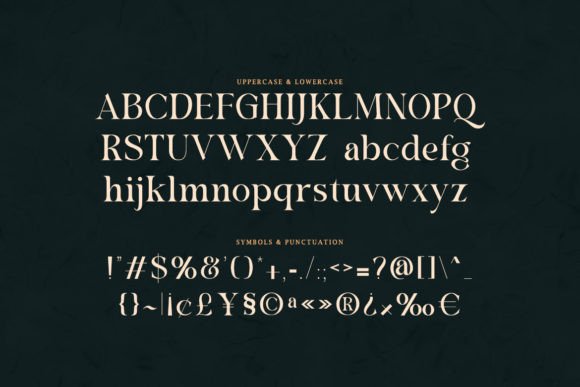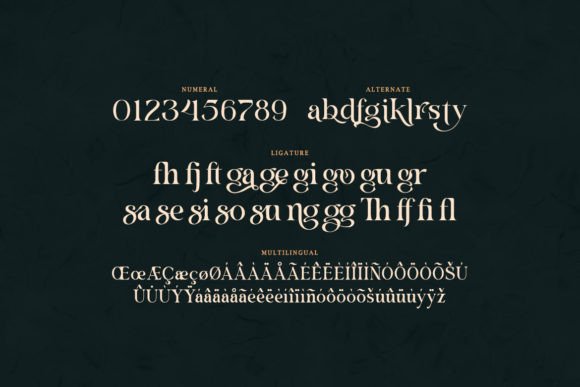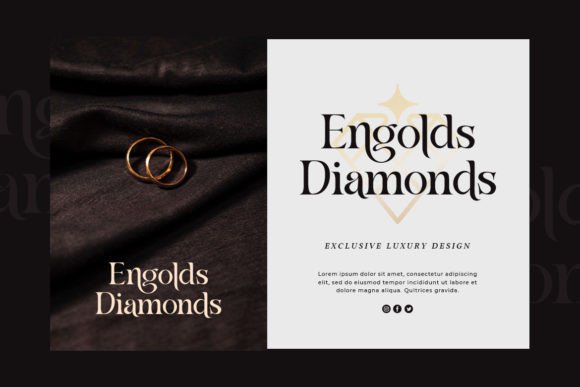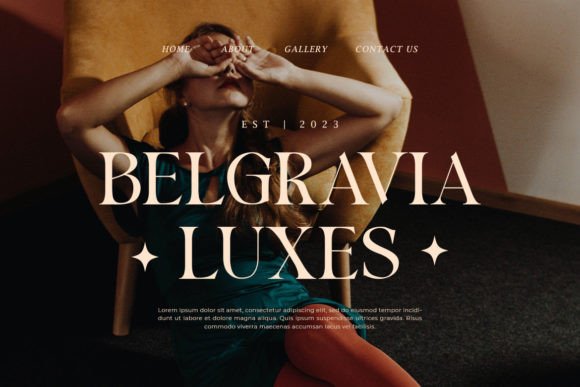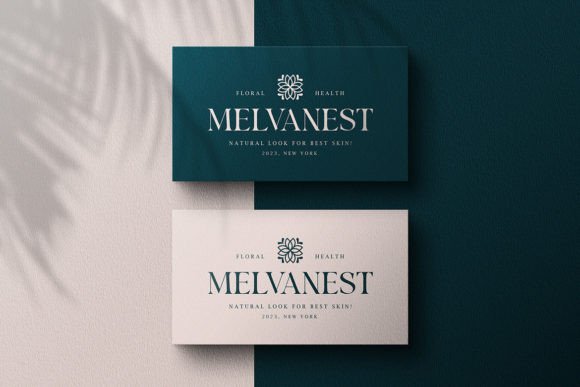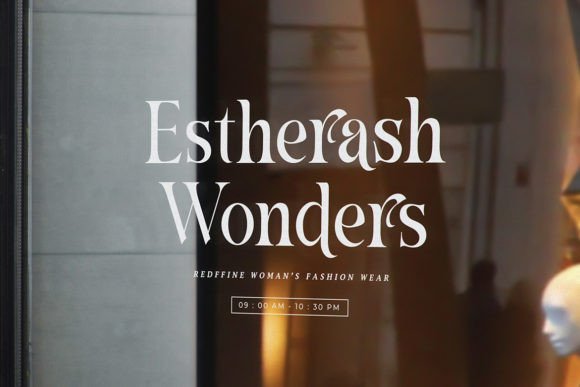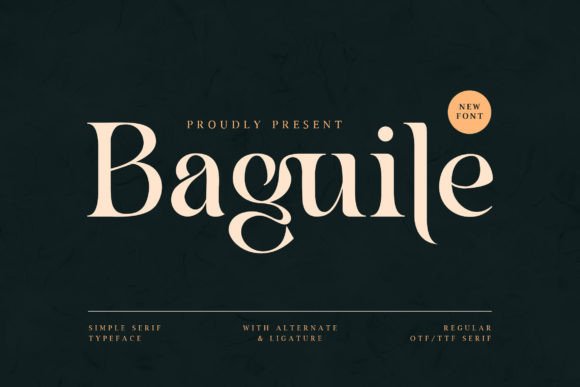
Discover the Elegance of Baguile Font: A Simple yet Versatile Serif Font
In the world of typography, a font can make or break a design project. With thousands of fonts available, finding the perfect one that combines elegance, simplicity, and versatility can be a daunting task. However, if you’re looking for a font that can effortlessly elevate your project, look no further than Baguile Font. In this article, we’ll explore the features and benefits of Baguile, a simple serif font that has been elegantly crafted to meet the demands of a wide range of projects.
What is Baguile Font?
Baguile is a simple serif font that exudes elegance and sophistication. Its subtle yet refined design makes it an ideal choice for designers and crafters seeking a font that can add a touch of luxury to their work. Whether you’re working on a branding project, a website, or a print design, Baguile’s classic and timeless look is sure to impress.
Key Features of Baguile Font
• Simple yet Elegant Design: Baguile’s serif design is characterized by its clean lines, subtle curves, and minimalist approach. This simplicity makes it easy to read and versatile enough to be used in various contexts.
• High Versatility: Baguile can be matched with an incredibly large set of projects, from modern digital platforms to traditional print materials. Its adaptability makes it a valuable asset for any designer or crafter.
• Exquisite yet Subtle Look: Baguile strikes the perfect balance between elegance and subtlety. Its refined design ensures that your project stands out without being overpowering.
Benefits of Using Baguile Font
So, why choose Baguile Font for your next project? Here are some benefits that make it an attractive option:
• Enhanced Readability: Baguile’s clear and simple design ensures that your text is easy to read, making it perfect for body text, headings, and titles.
• Professional Look and Feel: Baguile’s elegant design gives your project a professional and polished look, making it suitable for high-end branding, luxury goods, and premium services.
• Time-Saving: With Baguile, you can save time searching for the perfect font. Its versatility and adaptability make it an excellent all-around choice for various design projects.
Use Cases for Baguile Font
Baguile’s versatility makes it suitable for a wide range of projects, including:
• Branding and Logo Design: Use Baguile to create a sophisticated and memorable brand identity.
• Web Design: Baguile’s clean design makes it perfect for website headers, titles, and body text.
• Print Design: From business cards to brochures, Baguile is an excellent choice for various print materials.
• Packaging Design: Add a touch of elegance to your product packaging with Baguile’s refined design.
In conclusion, Baguile Font is an excellent choice for designers and crafters seeking a simple yet elegant serif font. Its versatility, readability, and professional look make it an ideal choice for a wide range of projects. Whether you’re working on a branding project, website, or print design, Baguile is sure to deliver an exquisite and subtle look that elevates your work. So, why wait? Discover the elegance of Baguile Font and take your design projects to the next level.